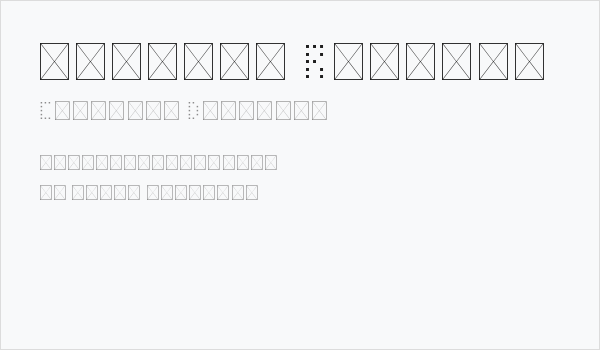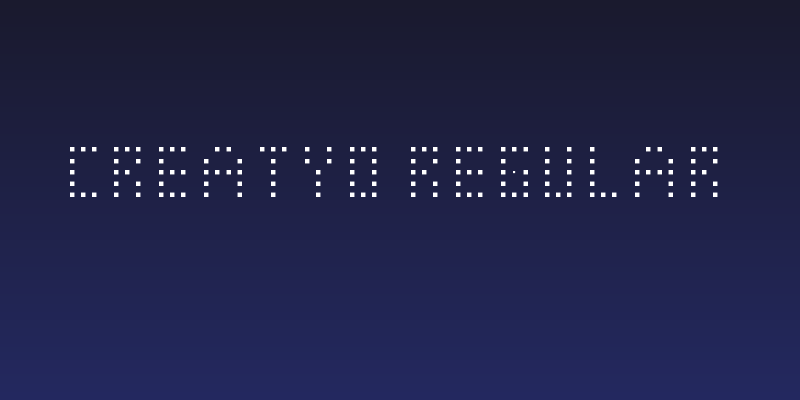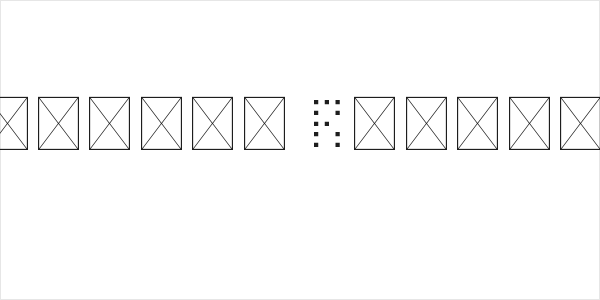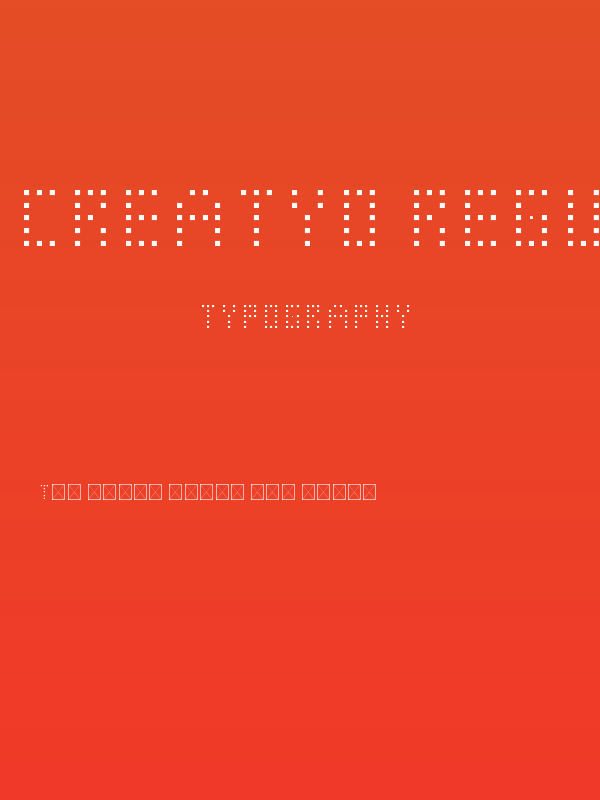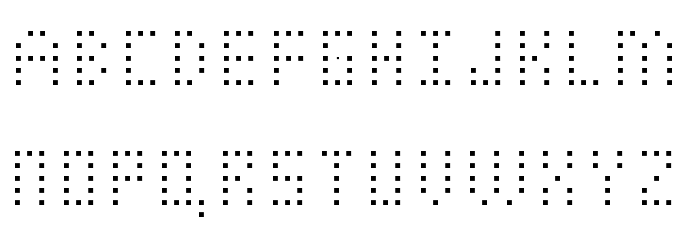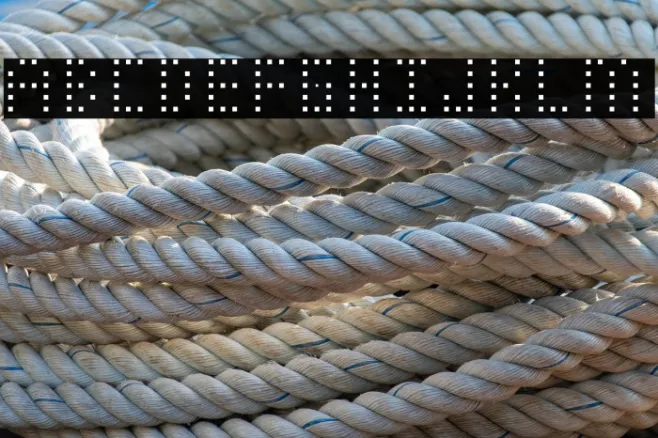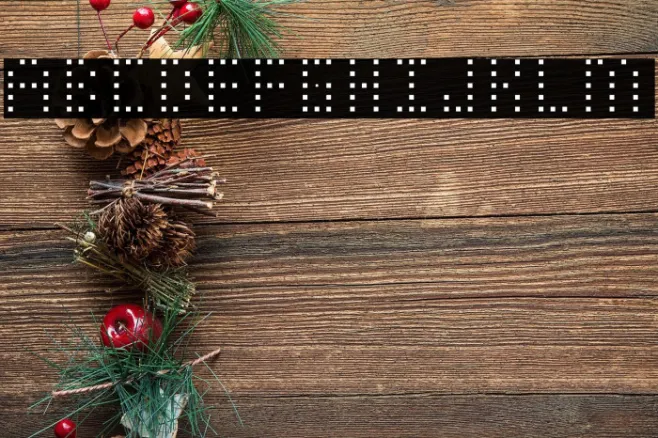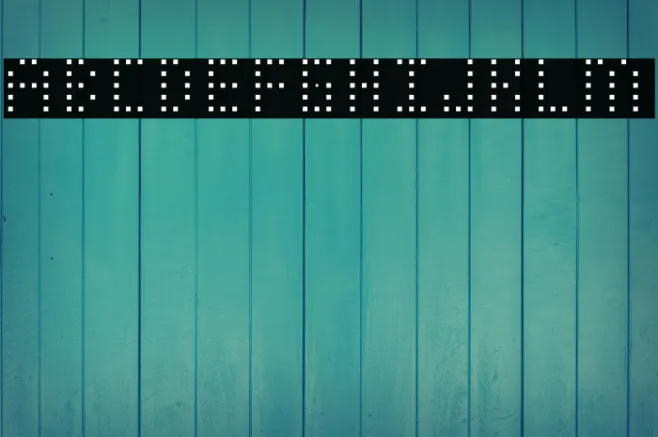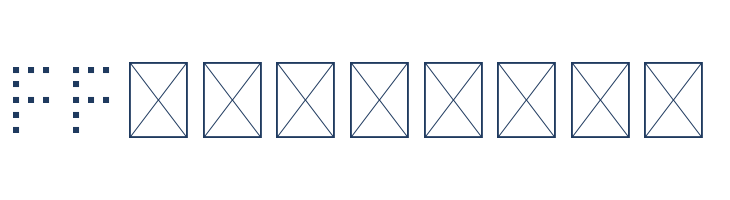
creatyo Regular Font
creatyo Regular Description
This font features a unique dot matrix design, where each character is constructed from a grid of evenly spaced dots. The style is reminiscent of digital displays and old-school printers, giving it a retro, tech-inspired feel. The characters are uniformly spaced, maintaining a consistent rhythm across both uppercase and lowercase letters. The numbers and special characters follow the same dot pattern, ensuring a cohesive look. This font's geometric precision and uniformity make it stand out, offering a distinct visual appeal that is both modern and nostalgic.
| Overall Style | Retro, Tech-inspired |
| Use Case | Logos, Headlines, Digital displays |
| Proposed Projects | Ideal for digital displays, retro-themed designs, tech branding, and creative posters. |